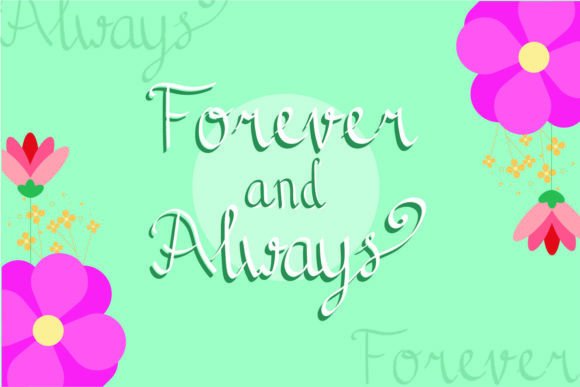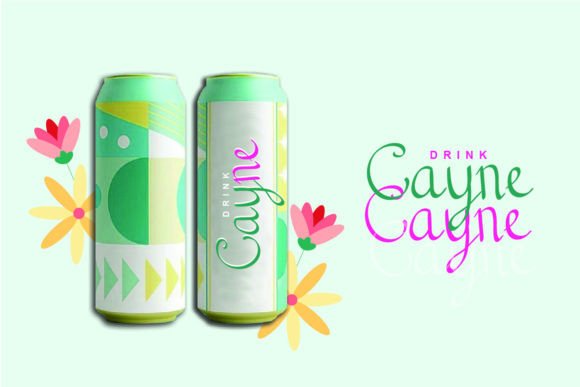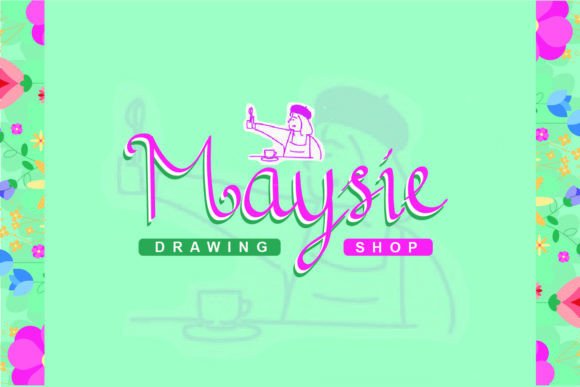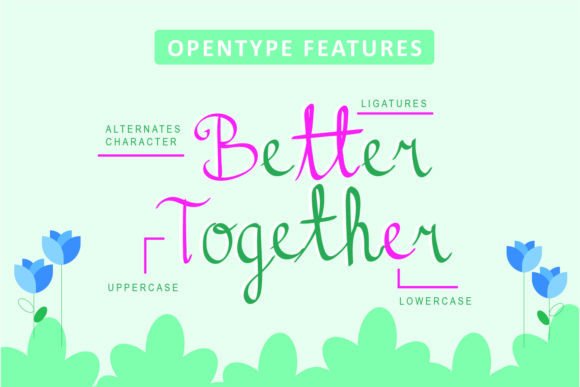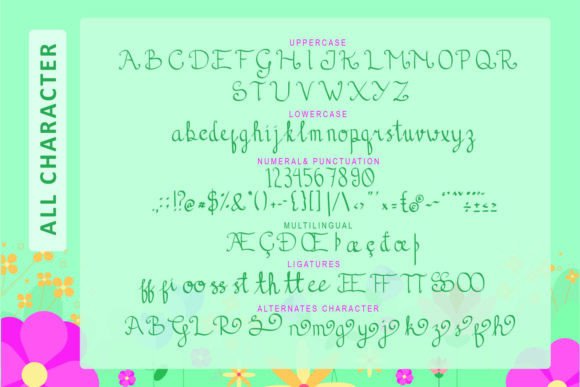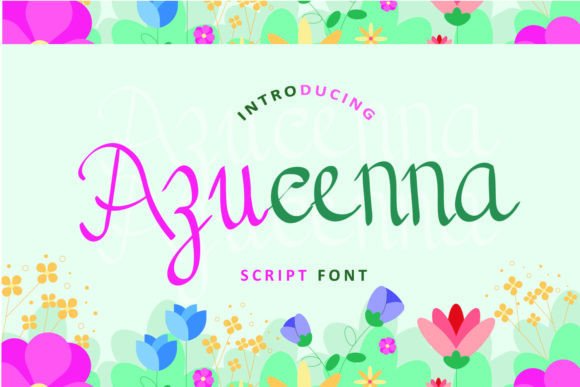
Introducing Azucenna Font: The Perfect Handwritten Font for Your Creative Projects
Are you a designer or crafter looking for a unique and personalized font to add a touch of whimsy to your designs? Look no further than Azucenna Font! This fun and casual handwritten font is perfect for a variety of creative projects, from wedding invitations and thank you cards to greeting cards, logos, and more.
What Makes Azucenna Font So Special?
Azucenna Font is a one-of-a-kind handwritten font that exudes a sense of playfulness and charm. Its casual, laid-back vibe makes it perfect for designers and crafters who want to add a personal touch to their work. With Azucenna Font, you can create beautiful and eye-catching designs that are sure to stand out from the crowd.
Azucenna Font is incredibly versatile and can be used for a wide range of design projects, including:
- Wedding invitations and stationery: Add a touch of romance and whimsy to your wedding designs with Azucenna Font.
- Thank you cards and greeting cards: Create personalized and heartfelt cards for any occasion.
- Logos and branding: Use Azucenna Font to create a unique and memorable brand identity.
- Social media graphics: Add a pop of personality to your social media graphics and posts.
- Paper crafts and DIY projects: Use Azucenna Font to add a personal touch to your paper crafts and DIY projects.
Key Features of Azucenna Font
Here are some key features that make Azucenna Font a must-have for designers and crafters:
- Handwritten font: Azucenna Font is a genuine handwritten font that looks like it was written with love and care.
- Unique character set: Each letter and number in Azucenna Font has its own unique character and charm.
- Easy to read: Despite its playful nature, Azucenna Font is easy to read and understand.
- Scalable: Azucenna Font can be scaled up or down without losing its charm or legibility.
Tips for Using Azucenna Font
Here are some tips for using Azucenna Font in your designs:
- Pair with other fonts: Azucenna Font looks great when paired with other fonts, such as serif or sans-serif fonts.
- Experiment with colors: Try out different colors and color combinations to add depth and interest to your designs.
- Use for headings and titles: Azucenna Font is perfect for headings and titles, but can also be used for body text.
- Keep it simple: Don’t be afraid to keep your design simple and let Azucenna Font be the star of the show.